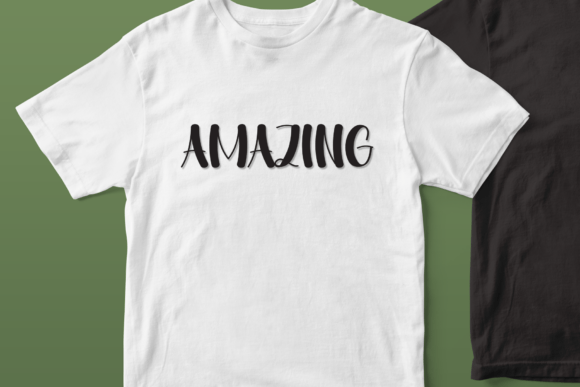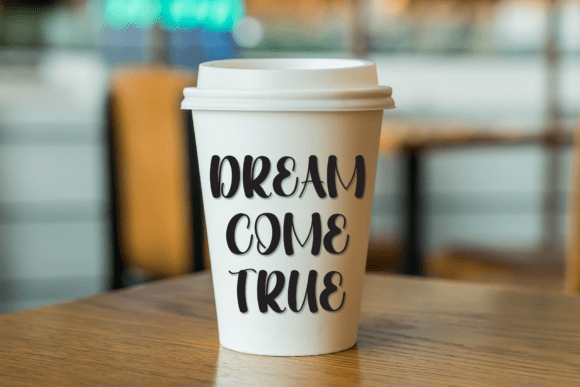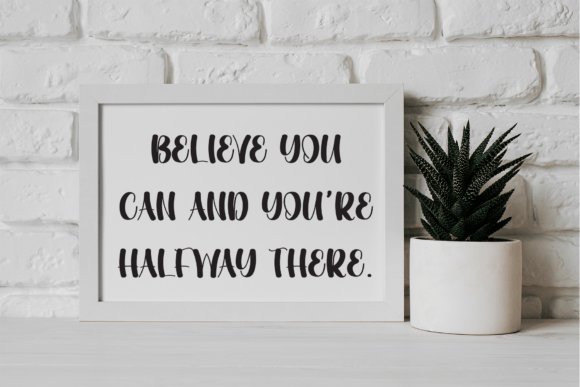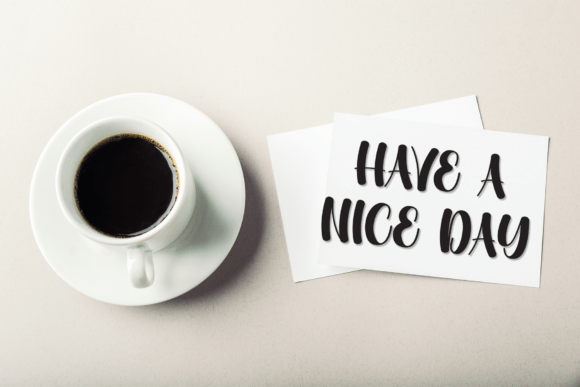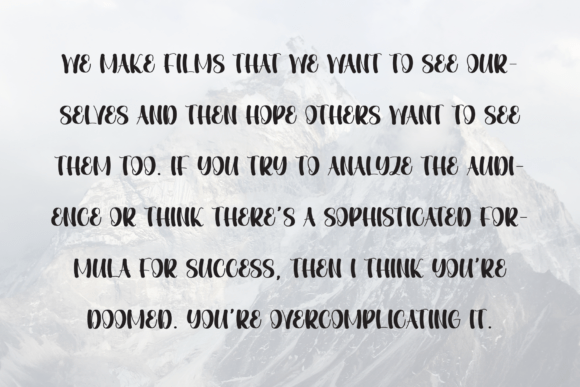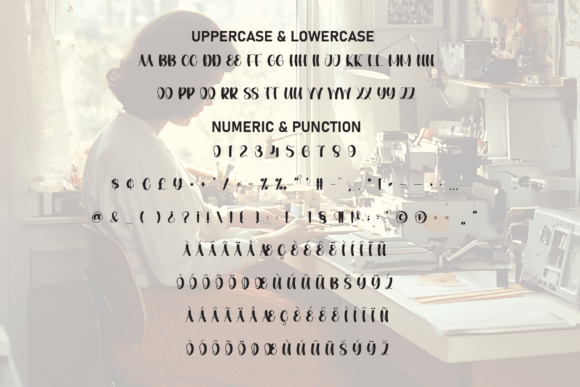
Discover the Charm of Designer Vintage Fonts: Introducing ‘Undeniably Delightful’
In the world of typography, designer vintage fonts have gained immense popularity for their unique and captivating aesthetic. These fonts are not just a means of communication, but an art form that can evoke emotions and add a touch of personality to any design. If you’re a designer or crafter looking for a font that can bring warmth, charm, and playfulness to your projects, then you’re in luck. We’re excited to introduce ‘Undeniably Delightful’, a handcrafted display font that embodies the essence of vintage charm.
The Story Behind ‘Undeniably Delightful’
‘Undeniably Delightful’ is a carefully crafted font that exudes a sweetly playful nature, making it perfect for designs that require a personal touch. This font is designed to bring a casually joyful vibe to any project, whether it’s a wedding invitation, greeting card, or any other creative endeavor. With its unique blend of elegance and playfulness, ‘Undeniably Delightful’ is sure to leave a lasting impression on your audience.
What Makes ‘Undeniably Delightful’ Special?
So, what sets ‘Undeniably Delightful’ apart from other fonts? Here are a few features that make it a standout:
- Handcrafted with love: Each letter has been carefully crafted to ensure a personal and unique touch.
- Playful yet elegant: ‘Undeniably Delightful’ strikes the perfect balance between playfulness and elegance, making it suitable for a wide range of designs.
- Vibrant and captivating: This font is designed to add a dash of whimsy and charm to any design, ensuring it stands out from the crowd.
- Easy to use: Despite its intricate design, ‘Undeniably Delightful’ is easy to use and pairs well with a variety of other fonts.
Perfect for Wedding Invites and Greeting Cards
‘Undeniably Delightful’ is particularly well-suited for wedding invitations and greeting cards. Its playful yet elegant nature makes it perfect for:
- Wedding invitations: Add a touch of whimsy and romance to your wedding invites with this beautiful font.
- Greeting cards: Whether it’s a birthday, anniversary, or holiday card, ‘Undeniably Delightful’ is sure to make your card stand out.
- Personalized gifts: Use this font to add a personal touch to personalized gifts, such as customized mugs, tote bags, or jewelry.
Tips for Using ‘Undeniably Delightful’ in Your Designs
To get the most out of ‘Undeniably Delightful’, here are a few tips to keep in mind:
- Pair with complementary fonts: Experiment with pairing ‘Undeniably Delightful’ with other fonts to create a unique and visually appealing combination.
- Use it sparingly: While ‘Undeniably Delightful’ is a beautiful font, it’s best used sparingly to avoid overwhelming the design.
- Experiment with colors: Don’t be afraid to experiment with different colors and textures to add depth and interest to your design.
‘Undeniably Delightful’ is a truly unique and captivating font that is sure to bring a touch of charm and whimsy to any design. With its handcrafted aesthetic, playful yet elegant nature, and ease of use, this font is perfect for designers and crafters looking to add a personal touch to their projects. Whether you’re creating wedding invitations, greeting cards, or personalized gifts, ‘Undeniably Delightful’ is the perfect choice. So why wait? Download ‘Undeniably Delightful’ today and discover the magic of designer vintage fonts for yourself!